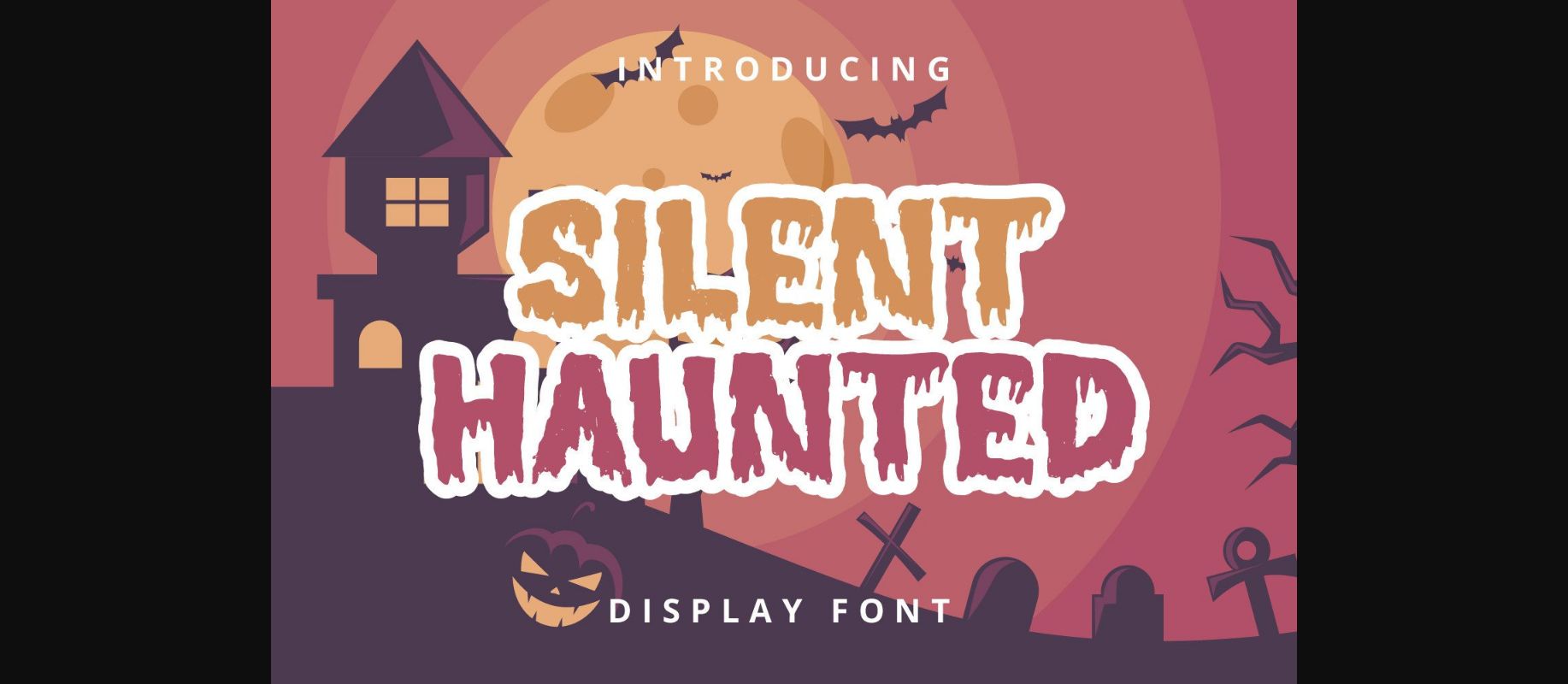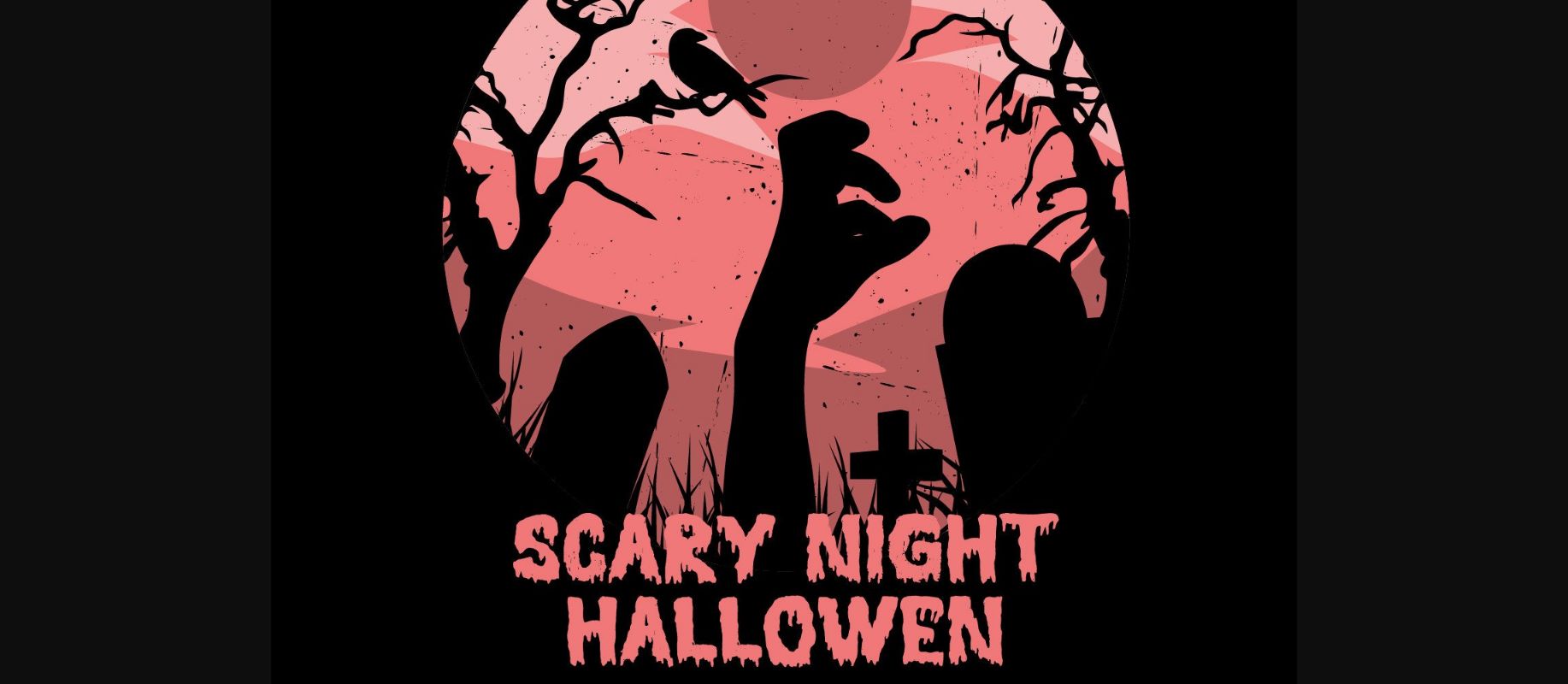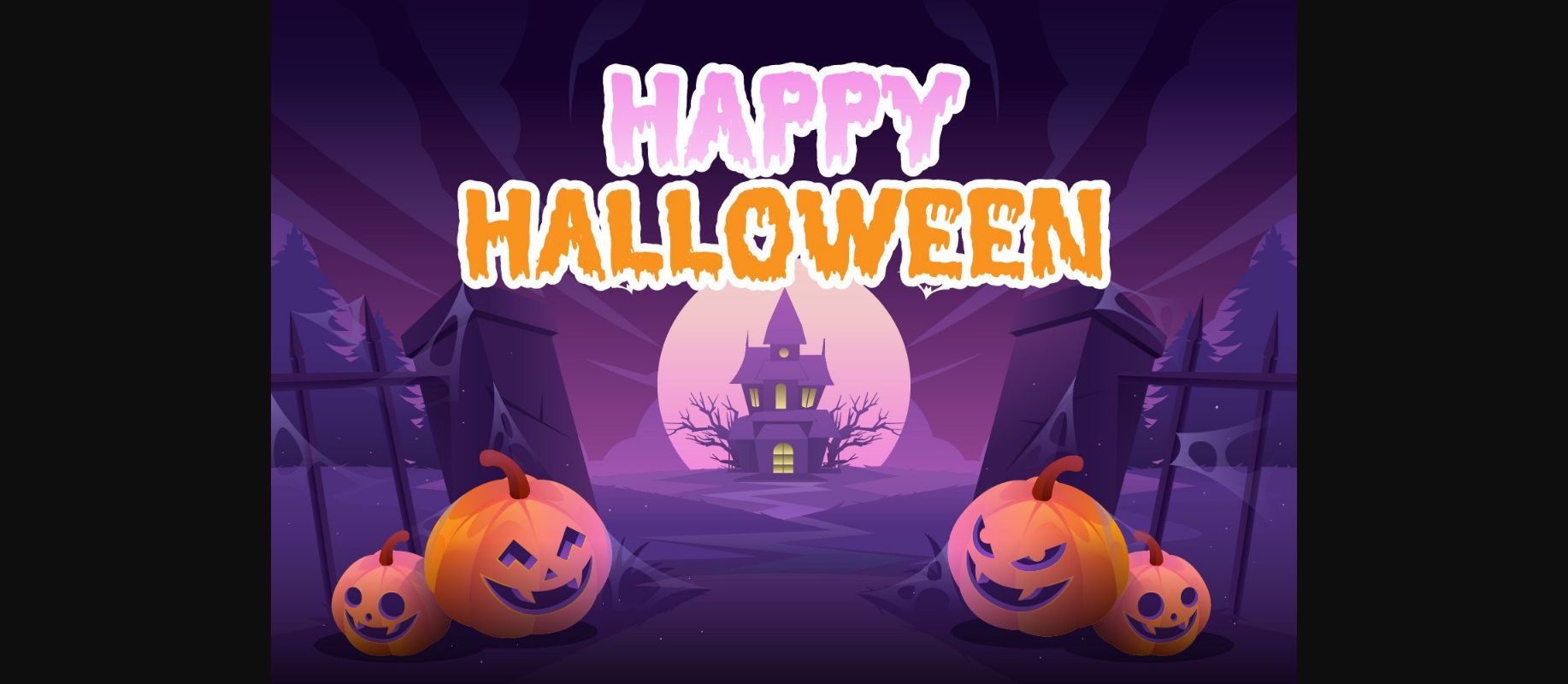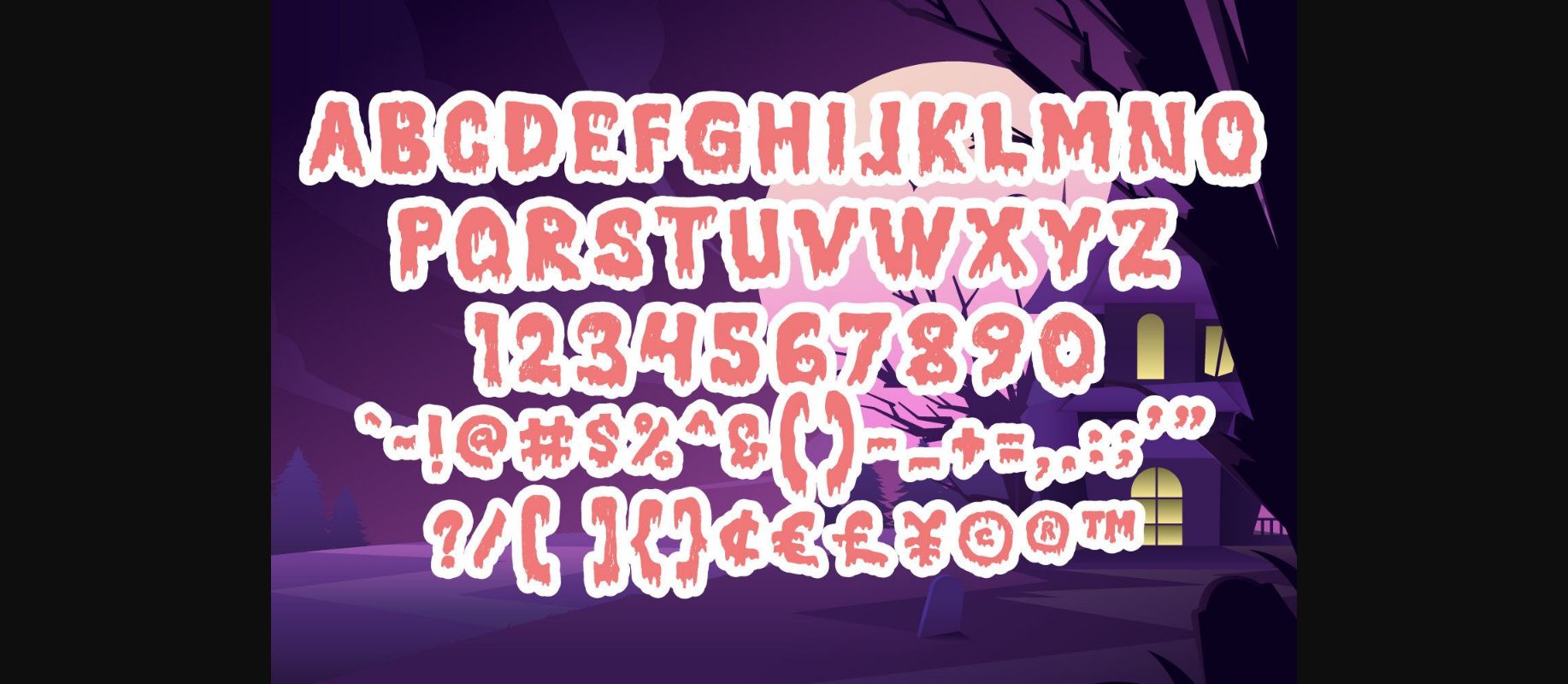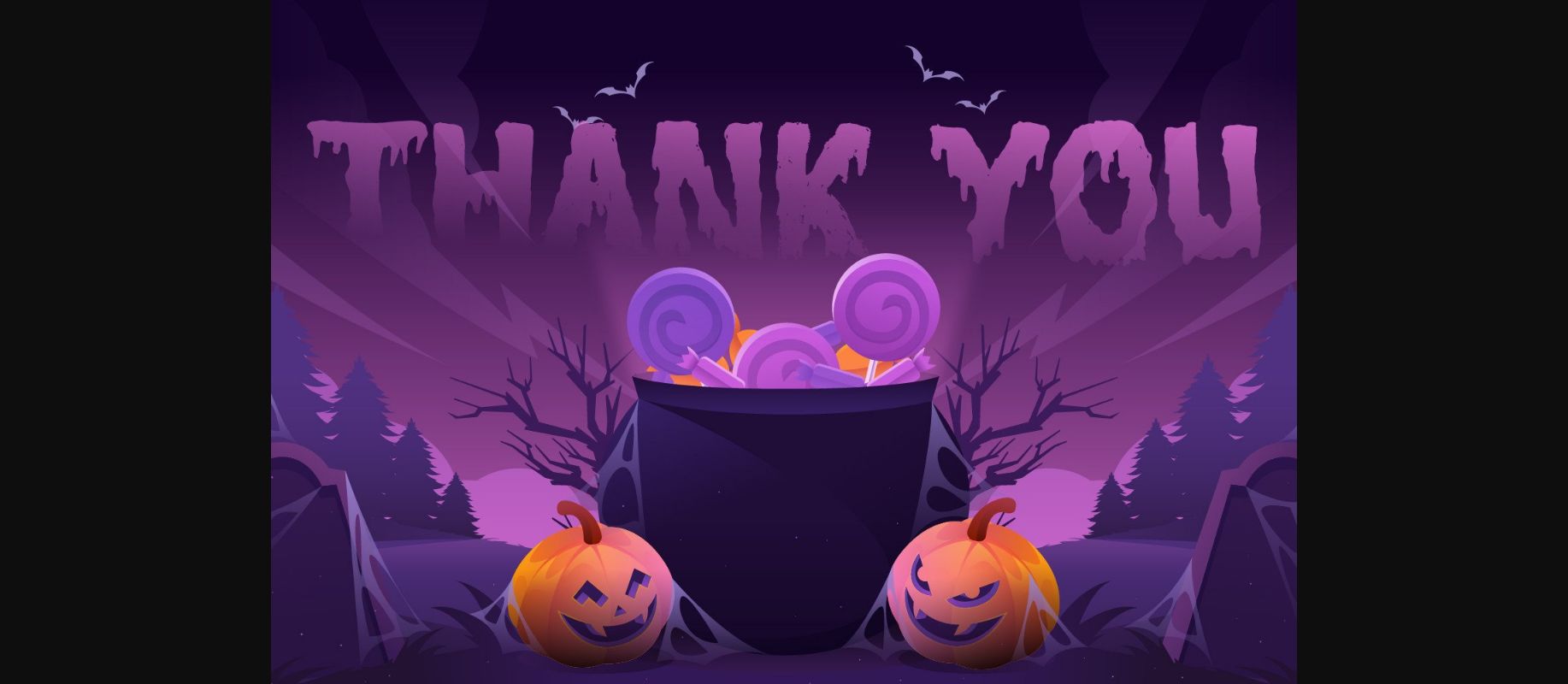
About Silent Haunted Font
Silent Haunted is a cute, friendly, and handwritten decorative font. Embodying authenticity and fun, this font is perfect for children-themed designs, especially when combined with bright colors.